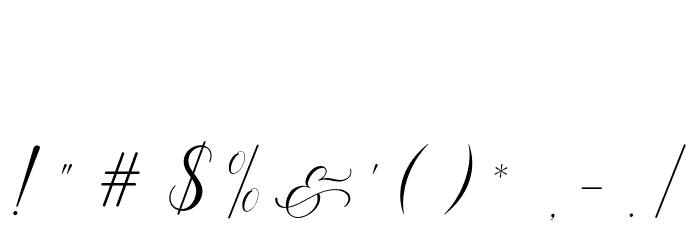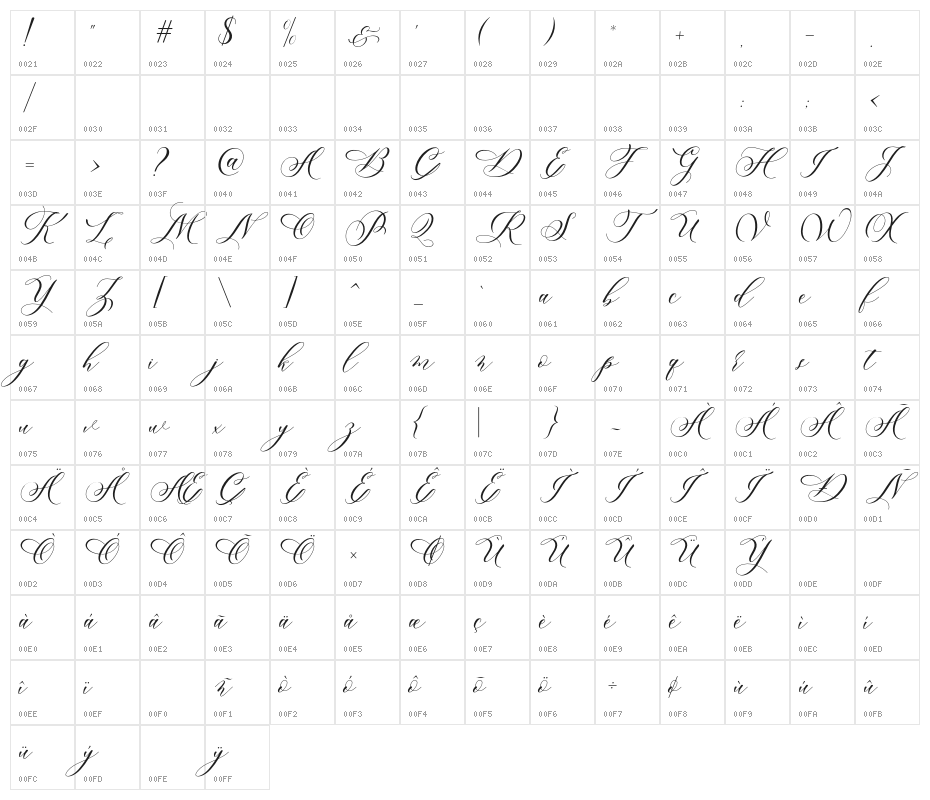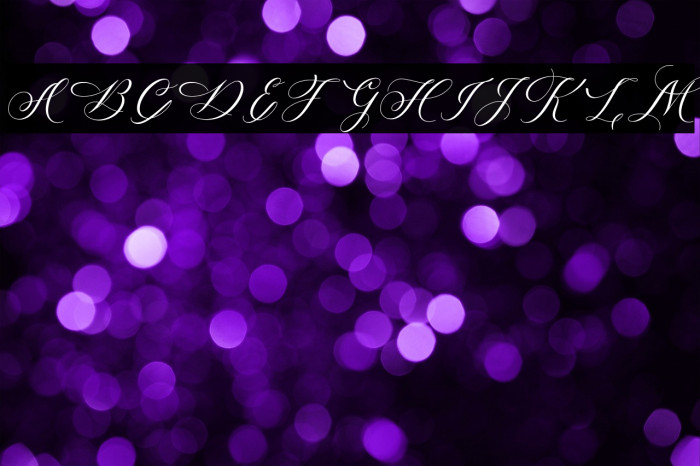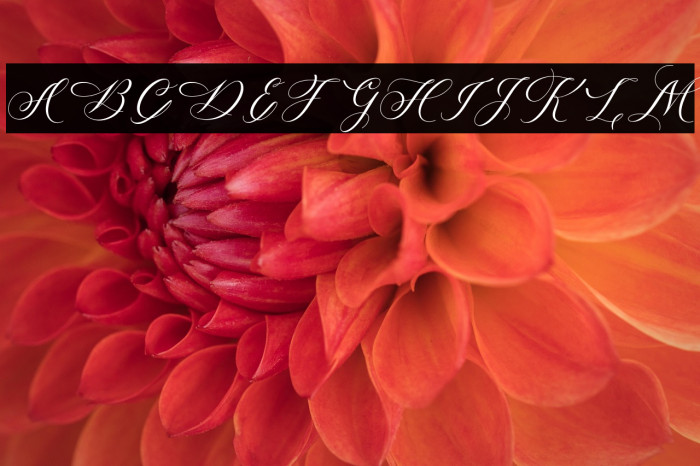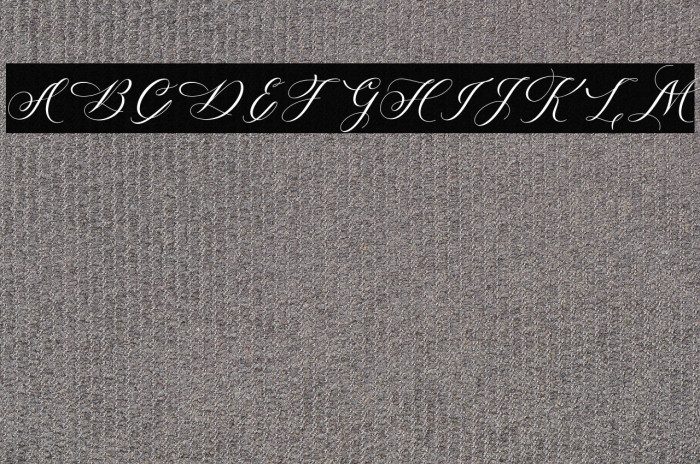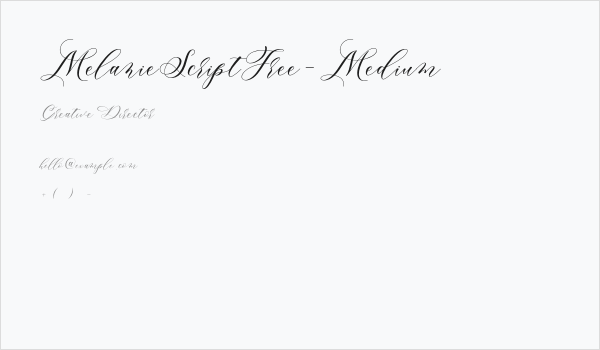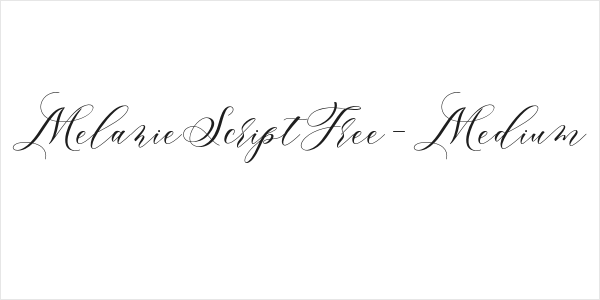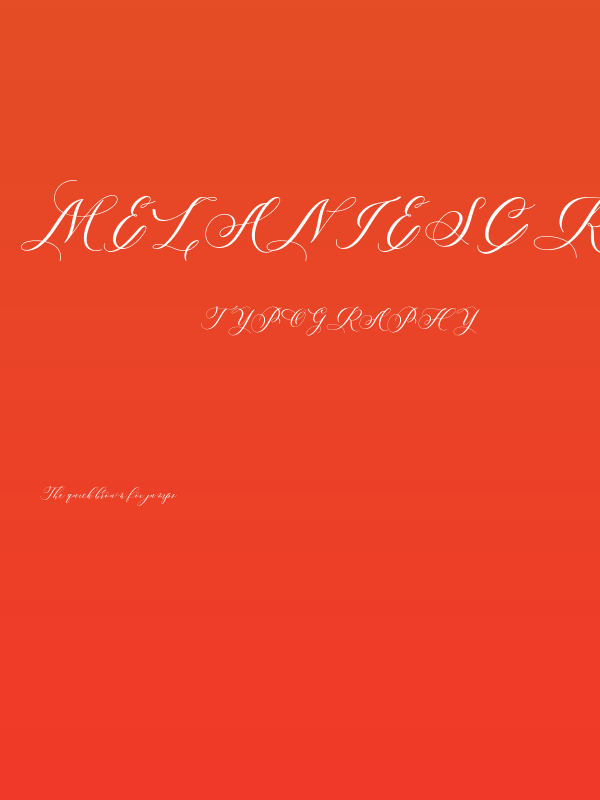
MelanieScriptFree-Medium Font
MelanieScriptFree-Medium Description
This elegant script font features flowing, interconnected letters with a refined and sophisticated appearance. The uppercase letters are adorned with intricate loops and flourishes, adding a touch of elegance and formality. The lowercase letters maintain a smooth and fluid style, enhancing readability while preserving the decorative nature of the script. The font's design is reminiscent of classic calligraphy, making it ideal for projects that require a touch of elegance and tradition. The characters are well-spaced, ensuring clarity and legibility even with the ornate design. The overall aesthetic is both graceful and stylish, suitable for a variety of creative applications.